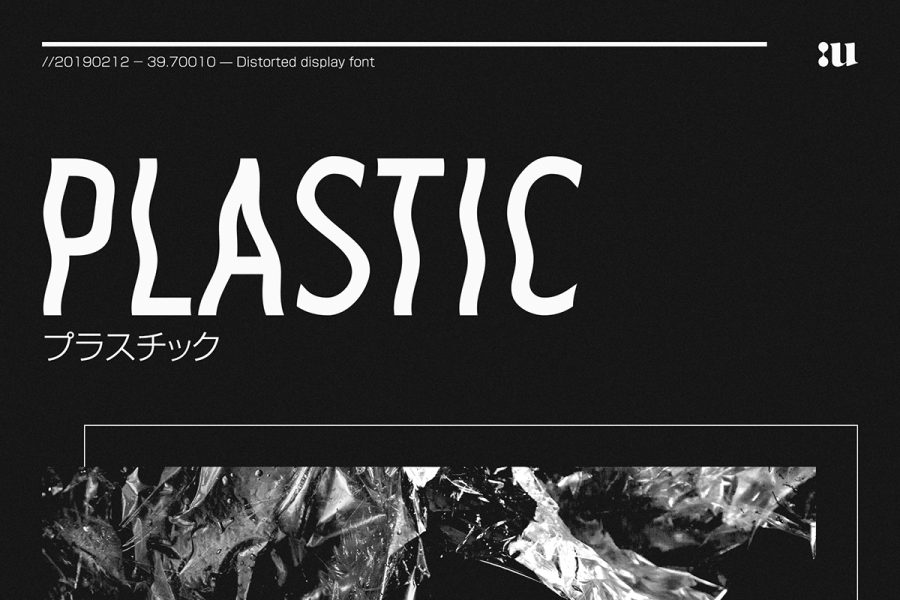
Free Plastic Sans Font
Free Plastic Sans Font is a font with unique glyphs. It is suitable for you to use it on projects such as packaging design, logo design, flyer, magazine, and more. This free font is available for OTF format that you can install and use it on your devices. However, this freebie only has an outline font, you cannot get a solid shape font. But, if you want to get two types of font, you can check out the premium version below.